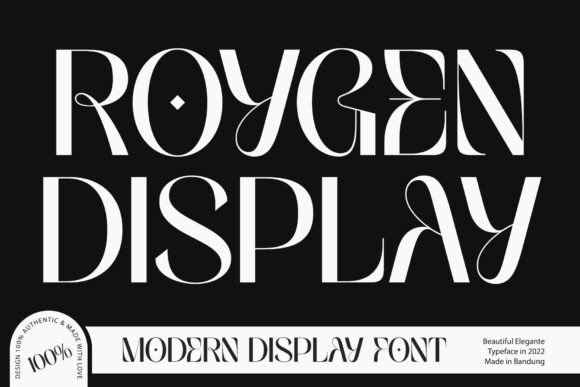
Discover Roygen Display Font - The Epitome of Elegance and Style
Immerse yourself in the resplendent realm of Roygen Display Font, an exceptional sans serif masterpiece that will redefine your design aesthetic. This font is an embodiment of sophistication, radiating an aura of elegance and class that will captivate your audience. Whether you're a seasoned designer or just starting your creative journey, Roygen Display Font will become your trusted companion, transforming your designs into works of art.
With its meticulously crafted curves and impeccable detailing, Roygen Display Font exudes a timeless charm that will elevate your designs to new heights. Its graceful lines and harmonious proportions create a visual symphony that will leave a lasting impression on your audience. Whether you're creating logos, branding materials, website designs, or social media graphics, Roygen Display Font will effortlessly elevate your projects with its refined aesthetic.
Designed with the discerning eye of a true artist, Roygen Display Font possesses a remarkable versatility that makes it suitable for a wide range of projects. Its inherent elegance lends itself beautifully to wedding invitations, greeting cards, and other special occasion designs. Let Roygen Display Font add a touch of grace and sophistication to your personal correspondence, leaving a lasting impression on your loved ones.
But Roygen Display Font's prowess extends far beyond the realm of print. Its meticulously crafted digital format makes it the ideal choice for web design. Whether you're creating a captivating website, an engaging blog, or an interactive online portfolio, Roygen Display Font will effortlessly enhance your digital presence. Its crisp and legible appearance ensures that your message will be conveyed with utmost clarity and impact.
So, embark on a transformative design journey with Roygen Display Font - a font that embodies sophistication, versatility, and timeless beauty. Let your creativity soar as you unlock the endless possibilities of this remarkable font. Experience the joy of creating designs that resonate with elegance and leave an enduring impression. With Roygen Display Font by your side, your design dreams will effortlessly become a reality.